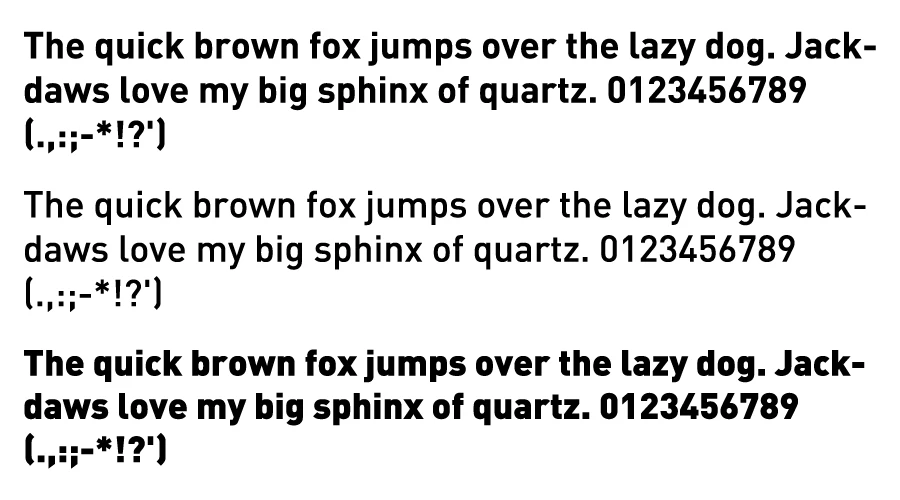
FF DIN is a Sans serif typeface designed by Albert-Jan Pool in 1995 (primarily based on DIN-Mittelschrift and DIN-Engschrift). Fontshop published this font in their FontFont library of typefaces. With 28 styles, this is one of the most popular fonts. It became very popular in September 2017 because of the best-selling typeface on MyFonts. FF Din has five font weights in two widths (with italic and some extended characters). This font is very much fashionable and elegant.
This is a widely used font. The New York City Ballet used this font in their logo. The Verge (which is an American technology news website operated by Vox Media) also used it as their Webfont. The Wolf of Wall Street is a 2013 American biographical black comedy crime film has also use FF DIN to make their poster. So if anyone talks about the field of use of this font, I would say you can use this font in all cases.